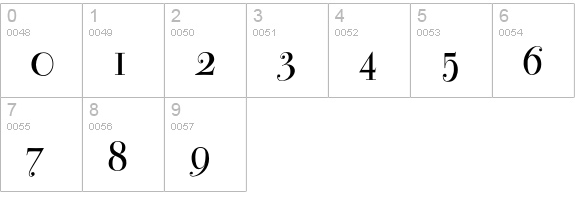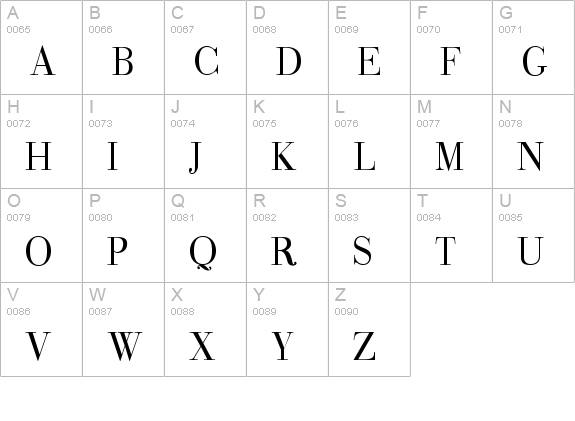
BodoniClassic-Roman is a timeless and elegant font that exudes sophistication and style. Its clean lines and classic serifs make it perfect for creating stunning designs for various projects. The font's versatility allows it to be used for both formal and contemporary designs, making it a must-have in any designer's toolkit. What makes BodoniClassic-Roman even more appealing is that it is available for free download at FontsMarket.com. This means you can easily access this beautiful font and use it in your projects without any cost. Whether you're designing a brochure, invitation, logo, or any other creative piece, BodoniClassic-Roman is sure to elevate your design and make a lasting impression. Download it now and add a touch of timeless elegance to your work.